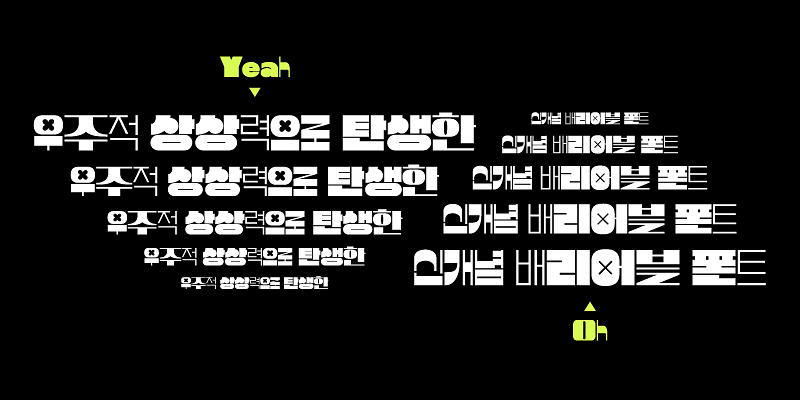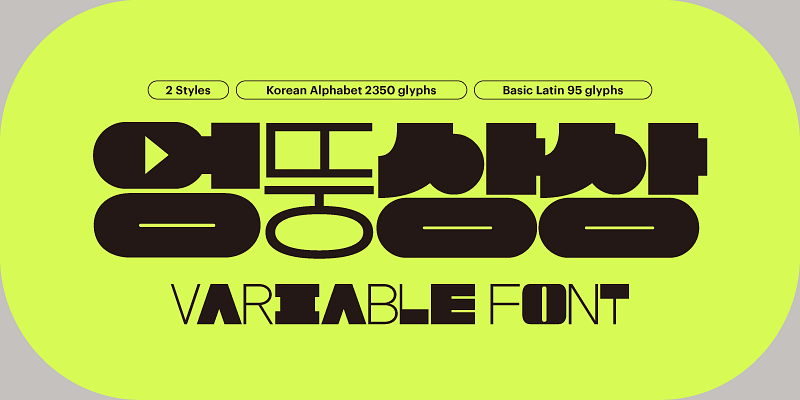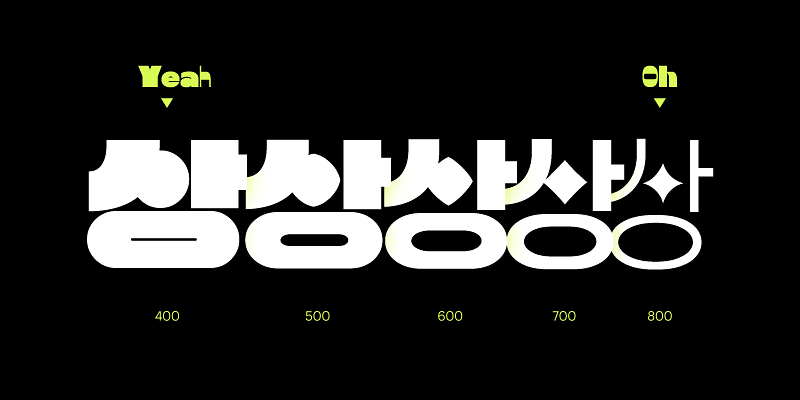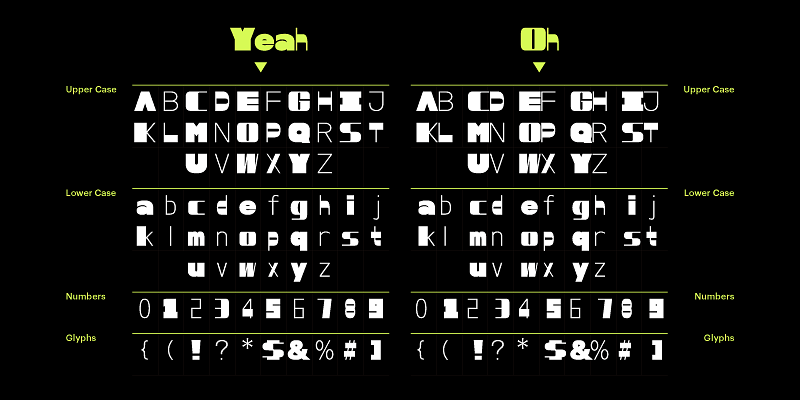
DS Ddungsang Variable, an innovative and inclusive font originating from Yoondesign Group’s dynamic studio Ddungsang, is the product of a broad-minded creativity that challenges the conventional. We hope that it serves as a source of inspiration for brands and creators fostering an alternative culture.